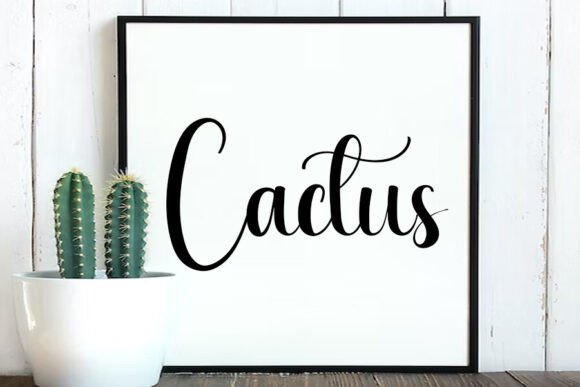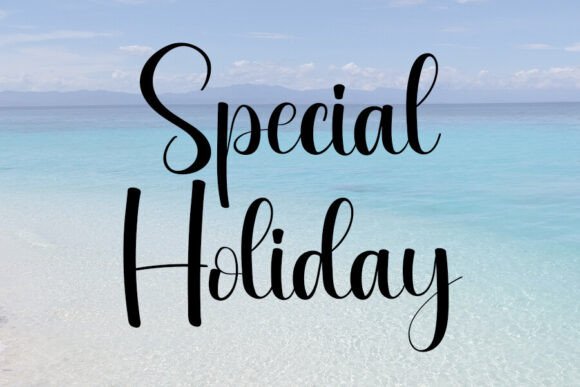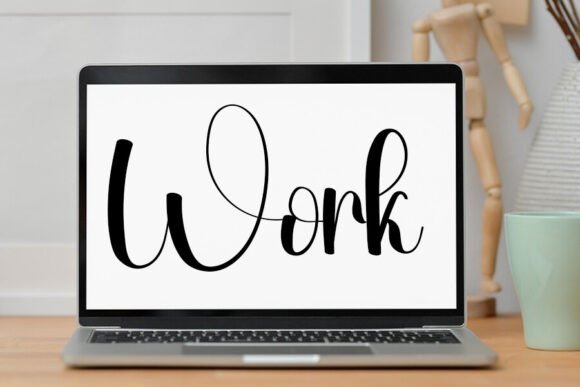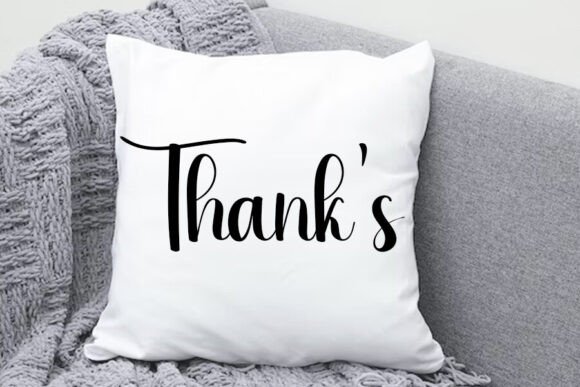
The Delightful Charm of Authentic Font: Unlocking Creative Potential
Have you ever been in the midst of working on a design project, only to find yourself stuck on one thing: the perfect font? I recall a particularly frustrating experience while crafting a wedding invitation for a client. The design was almost complete, but the font just wasn’t right – it was either too ornate or too bland. That’s when I stumbled upon Authentic, a fresh and elegant font that has since become a staple in my design toolkit.
A Personal Review of Authentic Font
As a designer, I’m always on the lookout for fonts that can bring a touch of sophistication and simplicity to my projects. Authentic does just that, and I’m excited to share my honest review with you.
What I Love About Authentic Font
- ✨ Elegant and Refined: Authentic boasts a sleek, modern aesthetic that’s perfect for projects that require a touch of sophistication.
- ✅ Versatile: From YouTube banners to wedding invitations, Authentic adapts seamlessly to various design contexts.
- 💡 Endless Creative Potential: With its wide range of OpenType features and glyphs, Authentic offers a world of creative possibilities.
While Authentic is an exceptional font, there are a few minor quirks to be aware of:
- 🤔 Limited Multilingual Support: Authentic’s character set is extensive, but it may not support every language or script.
- ⚠️ Occasional Kerning Issues: As with any font, some users may encounter kerning issues in specific design applications or platforms.
The Story Behind Authentic Font
While the actual origins of Authentic Font remain a mystery, it’s easy to imagine a designer driven by a passion for elegance and simplicity. Perhaps they sought to create a font that would empower creatives to produce stunning work without the hassle of complicated design elements. Whatever the inspiration, Authentic Font has undoubtedly become a valuable tool for designers and crafters worldwide.
Q: What makes Authentic Font unique?
A: Authentic Font stands out with its elegant and refined aesthetic, making it perfect for a wide range of design projects.
Q: Is Authentic Font suitable for body text?
A: While Authentic Font is elegant, it’s primarily designed for display purposes. For body text, consider pairing it with a complementary font for optimal readability.
Authentic Font offers a unique blend of elegance and simplicity, making it an excellent addition to any designer’s toolkit. By embracing its charm and creative potential, you’ll unlock new possibilities for your designs and witness the spark of progress, development, and evolution in your work.